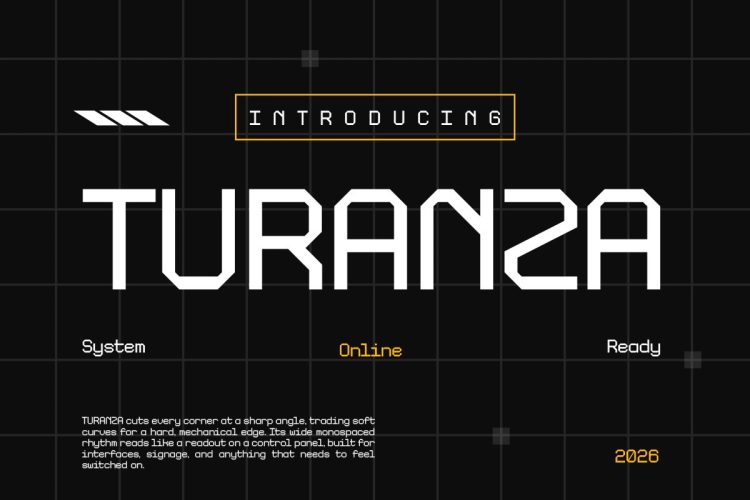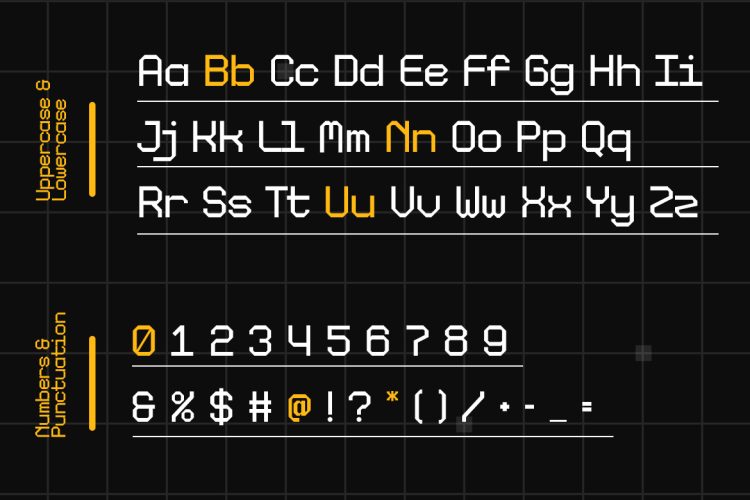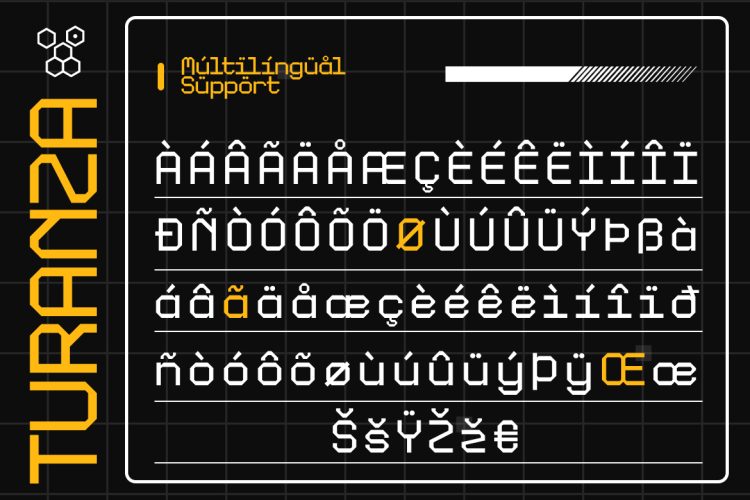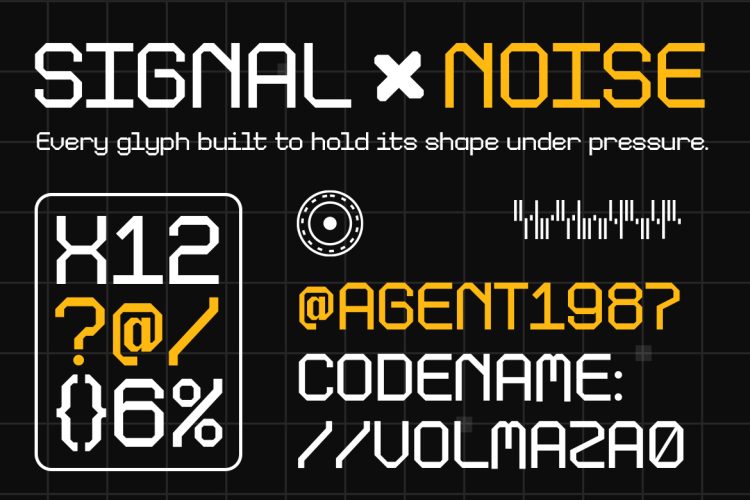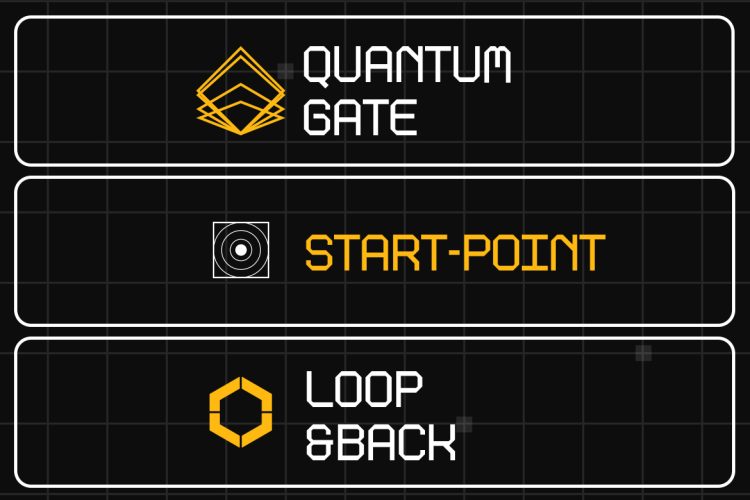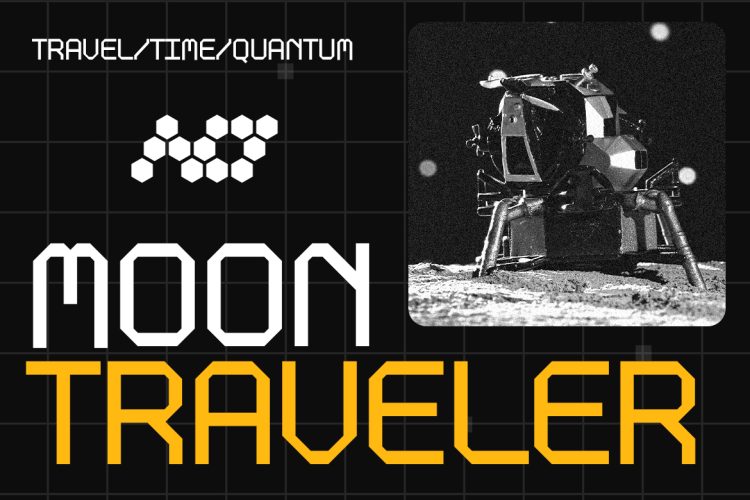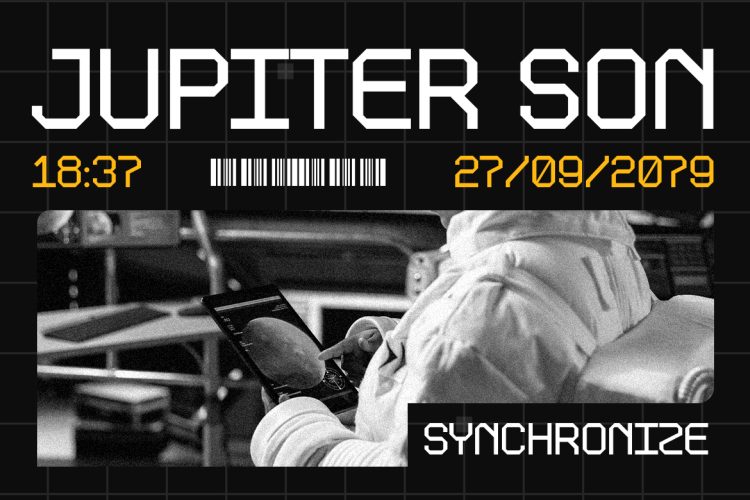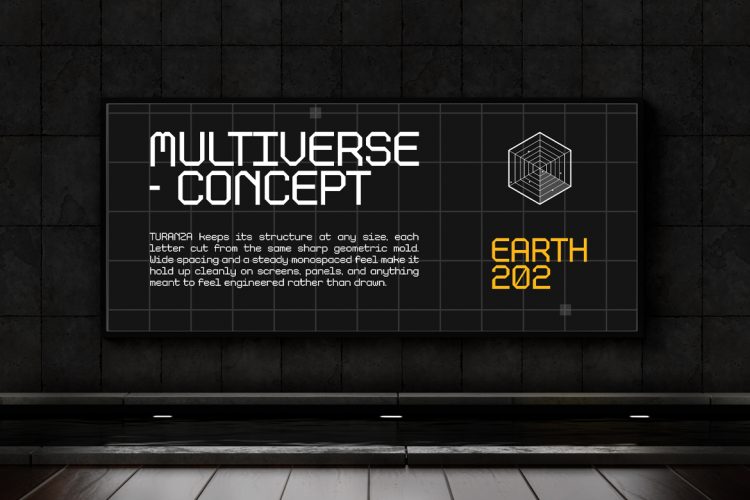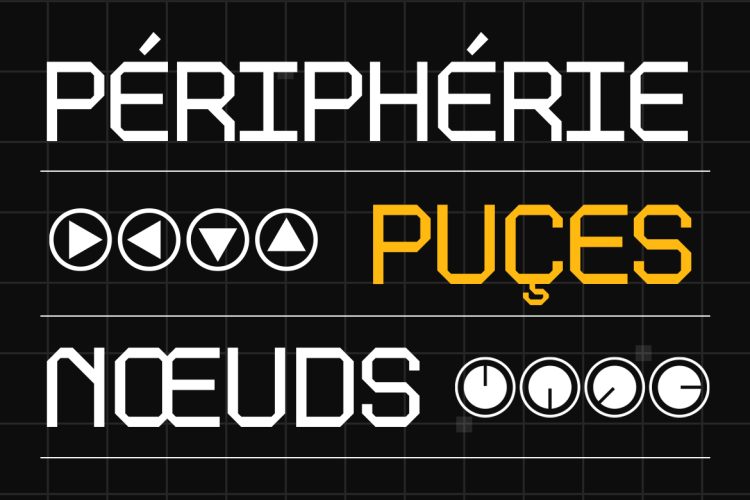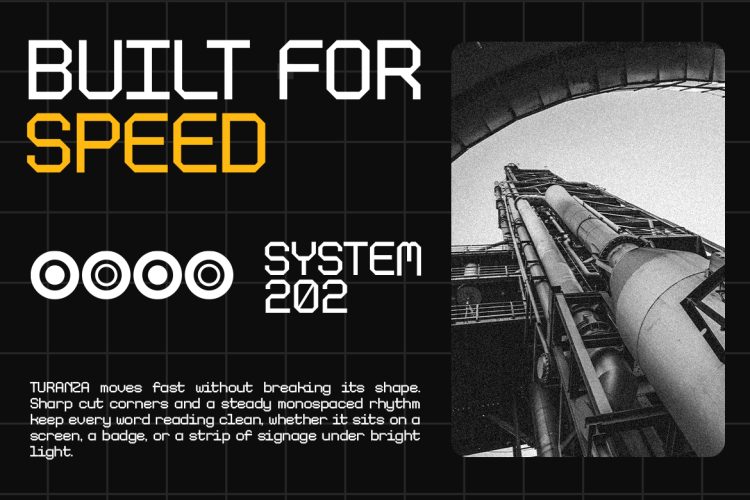
TURANZA โ Futuristic Tech & Sci-Fi Display Font
Modern Font TURANZA is a sleek display font built for futuristic ideas and digital worlds. Right away, its geometric letterforms create a sharp, technical appearance. Moreover, the wide shapes and precise details give TURANZA a strong sci-fi personality. Meanwhile, its clean construction keeps text readable and visually balanced. Because of this, it works beautifully for bold headlines, interface graphics, and modern visual systems. In addition, TURANZA includes Multilingual Support for 67 Languages. Therefore, it is ready for creative projects with a global audience.
Whether you are designing a futuristic brand or a sci-fi concept, Modern Font TURANZA brings instant character. Furthermore, it fits technology branding, gaming, UI design, robotics, space projects, posters, websites, apps, exhibitions, product design, and advertising. Additionally, you can use it for logos, titles, social media graphics, album artwork, and editorial layouts. As a result, TURANZA is a great choice for designers, developers, creative studios, tech startups, gamers, and innovative brands.
Build the Future